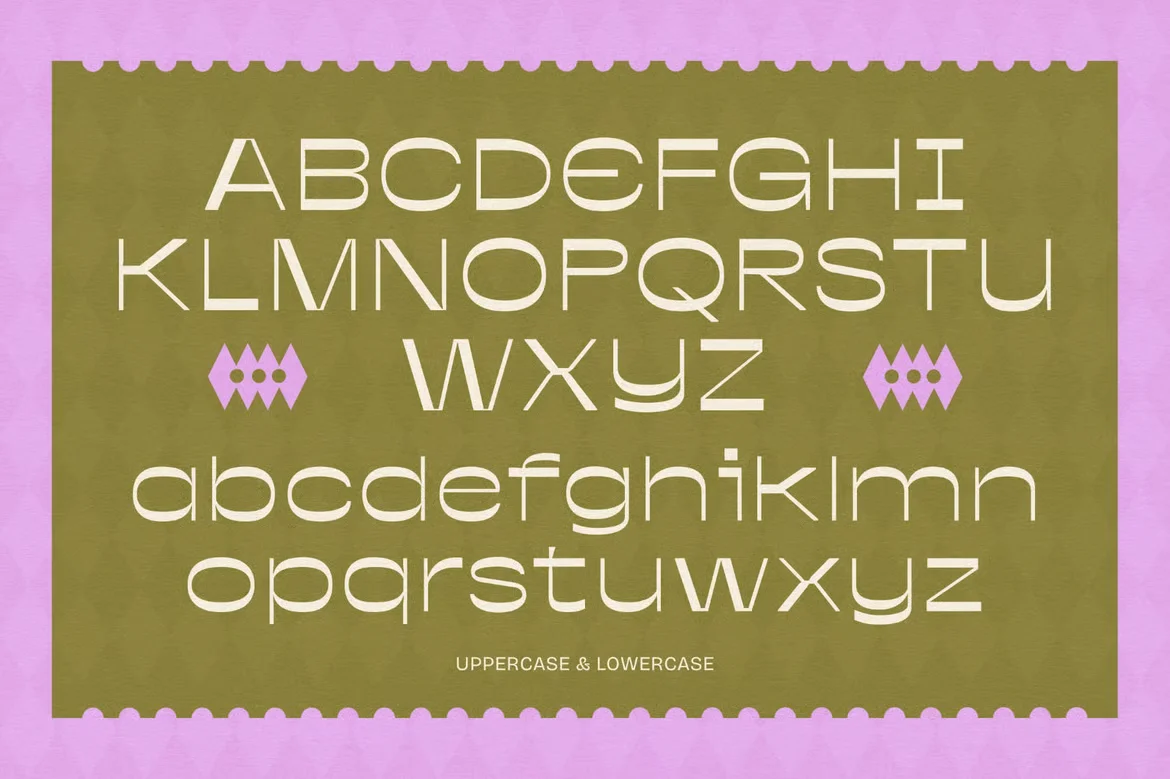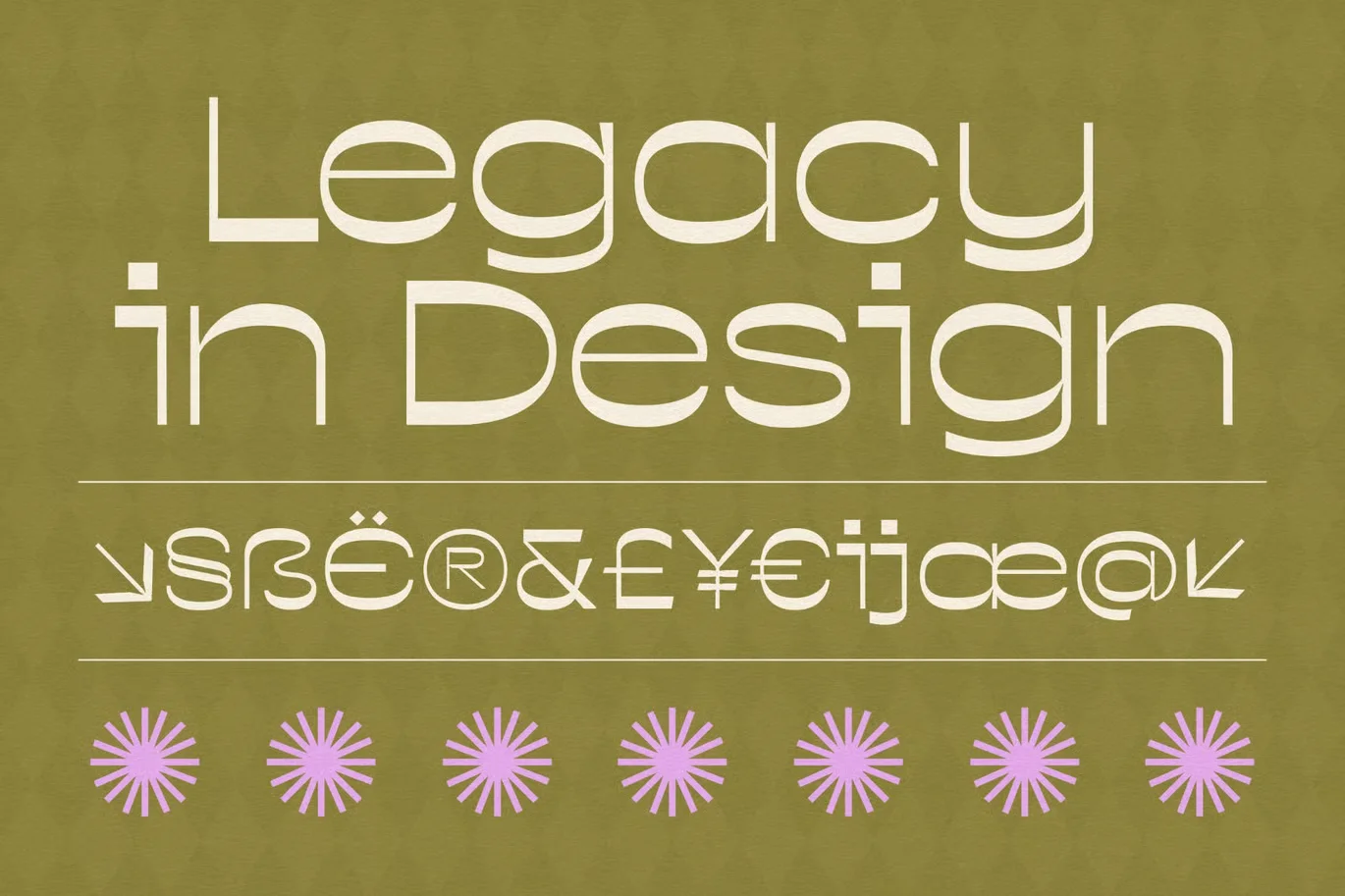
Ravonst Font addresses a common design challenge: creating visual emphasis in logos and headings without reducing clarity. Designers use display fonts like this to add structure and presence to branding, posters, and social media graphics.
Ravonst Font is classified as a display font, built with bold strokes and defined shapes. The letterforms often feature moderate contrast, sharp terminals, and controlled spacing, helping text stay readable at large sizes. Decorative details are limited, which keeps letter recognition clear in logos and headline applications. Ravonst Font is not intended for long body text but performs well in short, high-impact phrases.